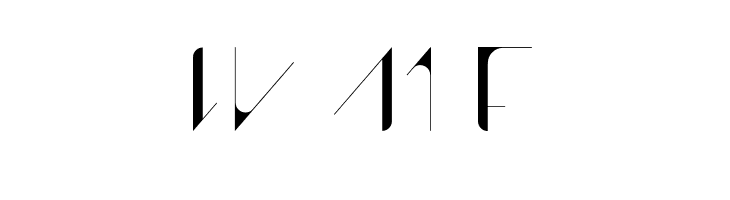
A dot matrix style font with a retro digital display aesthetic.
A tall, narrow font with a modern and artistic style.
A pixelated, grid-based font with a digital, tech-inspired look.
A bold, brush-stroke style font with an artistic and dynamic appearance.
A pixelated, digital-style font reminiscent of old digital displays.
A bold, distressed font with a grunge texture for a rugged, edgy look.
A decorative and intricate font with bold, uppercase letters and elaborate flourishes.
A bold, decorative font with a stitched outline effect, perfect for creative projects.
A collection of intricate and elegant ornamental designs with vintage flair.